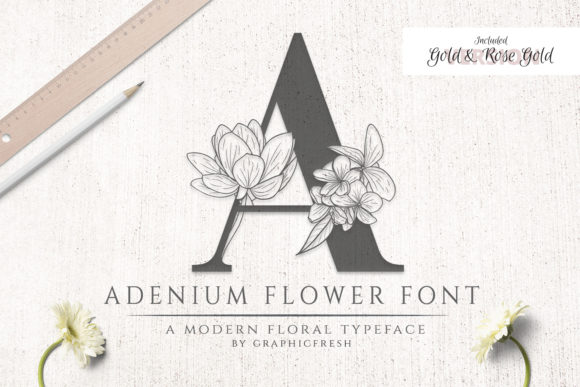
The Adenium Flower Font: A Designer’s Tropical Treasure
I’ll never forget the time I was working on a wedding invitation project for a beachside resort. My client wanted a font that would evoke the carefree, tropical vibe of their special day. I scoured the internet, tried countless fonts, but nothing seemed quite right. That was until I stumbled upon the Adenium Flower Font. 🌴
Inspired by the frangipani flowers, this beautiful font is sure to transport your designs to a tropical paradise. In this article, I’ll share my experience with the Adenium Flower Font, its features, and how to make the most of it in your designs.
A Personal Review
Here’s what I love about the Adenium Flower Font:
- ✨ Elegant serif style that adds a touch of sophistication to any design
- ✅ Perfect for wedding invitations, branding, logos, and more
- 🌟 Unique and eye-catching, perfect for making a statement
- 👍 Highly versatile, suitable for a wide range of design projects
While the Adenium Flower Font is a stunning addition to any design, there are a few quirks to be aware of:
- 🤔 Some characters may not work well at very small font sizes
- ⚠️ Limited availability of certain special characters
The Story Behind the Font
The Adenium Flower Font was inspired by the beautiful frangipani flowers, commonly known as “Adenium” in Latin. The font’s designer was captivated by the flower’s elegance and beauty, and sought to capture its essence in a typographic form. The result is a stunning serif font that’s perfect for a wide range of design projects.
| Font Name | Adenium Flower Font |
| Author | Graphicfresh |
| What is the Adenium Flower Font inspired by? | The Adenium Flower Font is inspired by frangipani flowers, commonly known as “Adenium” in Latin. |
| What type of designs is the Adenium Flower Font suitable for? | The Adenium Flower Font is perfect for wedding invitations, branding, logos, restaurant and hotel designs, beach resorts, and more. |
| Is the Adenium Flower Font available in different styles? | Yes, the Adenium Flower Font comes in different versions, including uppercase and lowercase letters. |